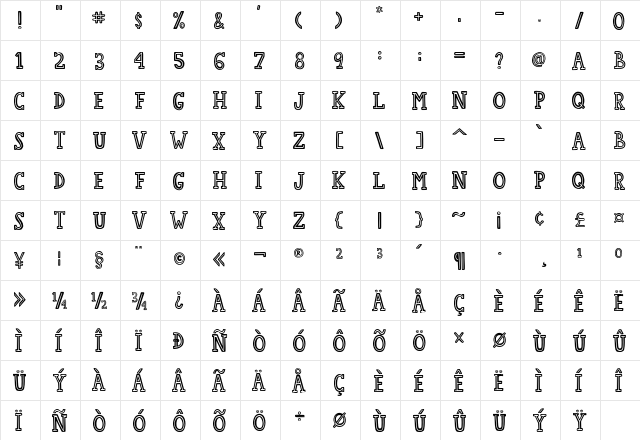
College Star Line Regular
Design Context for College Star Line Typeface
College Star Line brings high-energy athletic personality to the page — its confident, muscular forms are built for impact.
A natural choice for gym brands, fantasy sports, jersey lettering, and action-driven headlines.